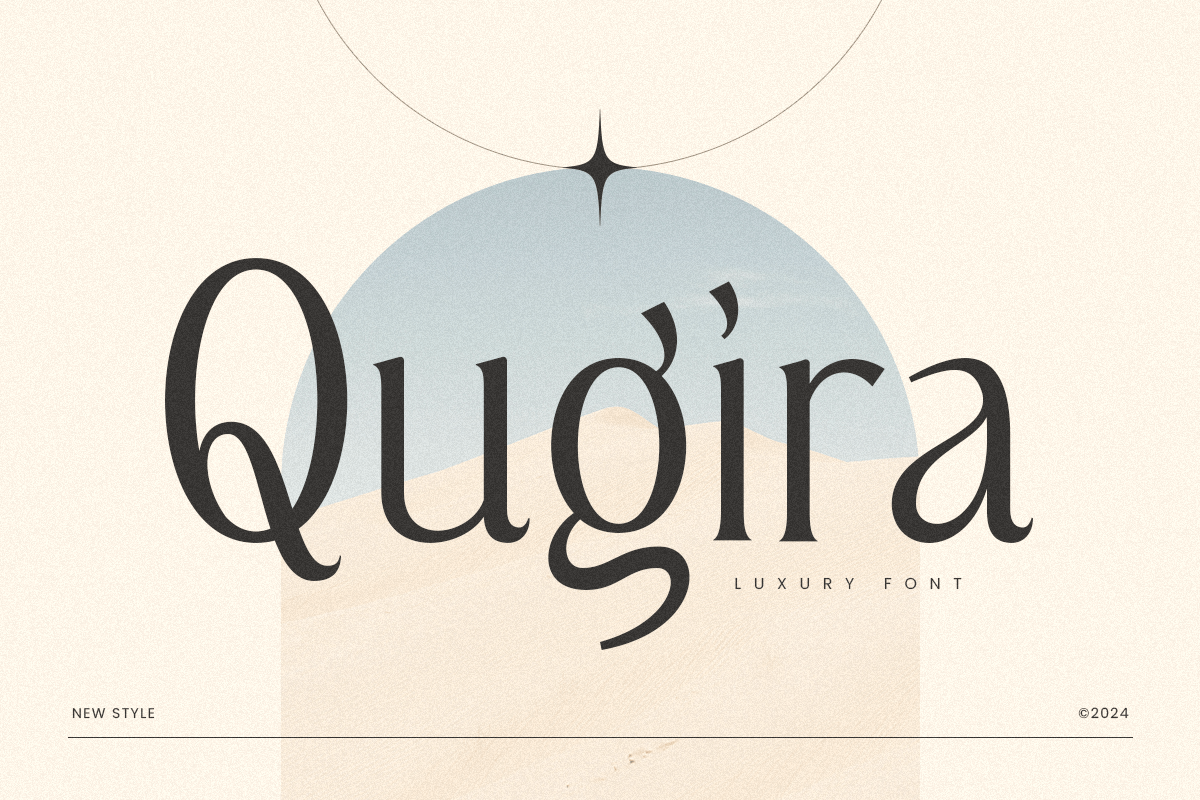
Qugira
qugira
Qugira
An exclusive luxury font tailored for sophisticated and modern branding, offering an elegant aesthetic to enhance your brand's allure. Crafted with unique alternates, this font is designed to elevate the value of your brand. Whether you're a designer or a product owner seeking stylish and modern solutions, this font provides the perfect answer. Boasting an array of bohemian characters, it opens the door to endless creative possibilities, allowing you to create a myriad of variations for your unique and stylish designs.